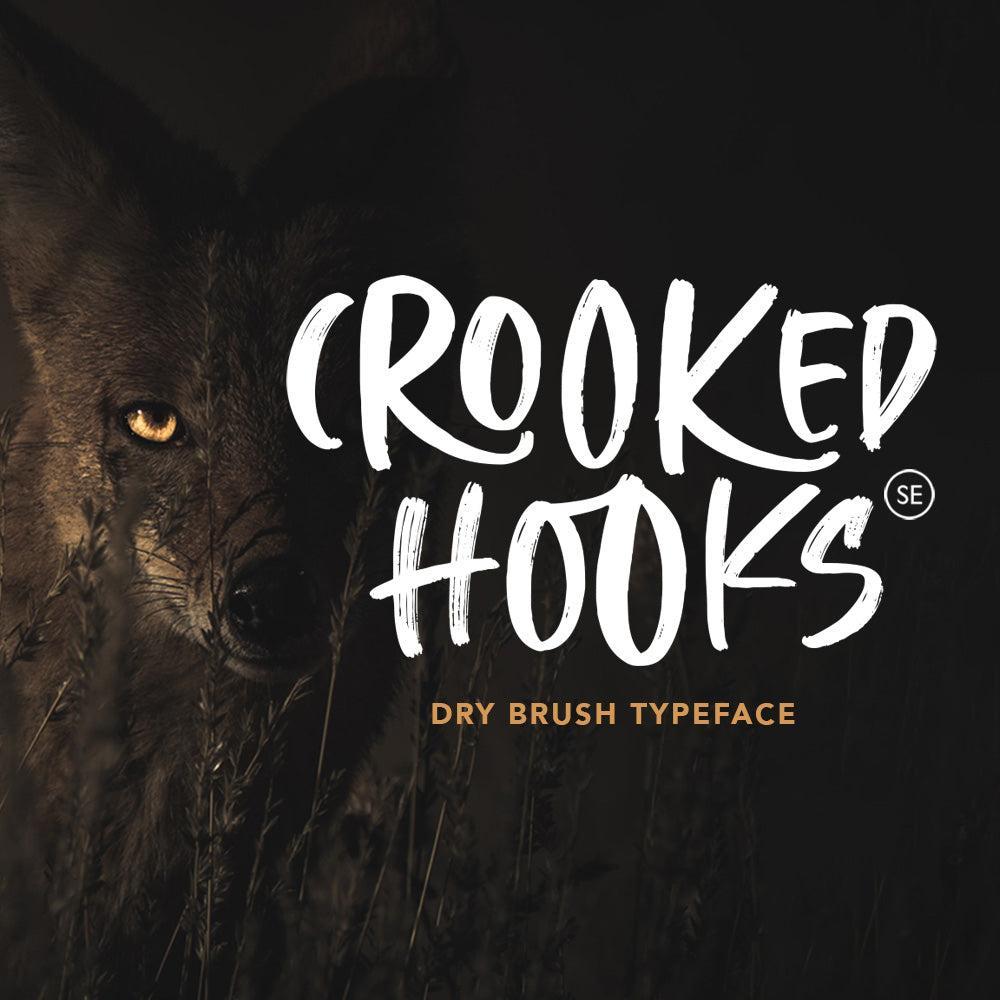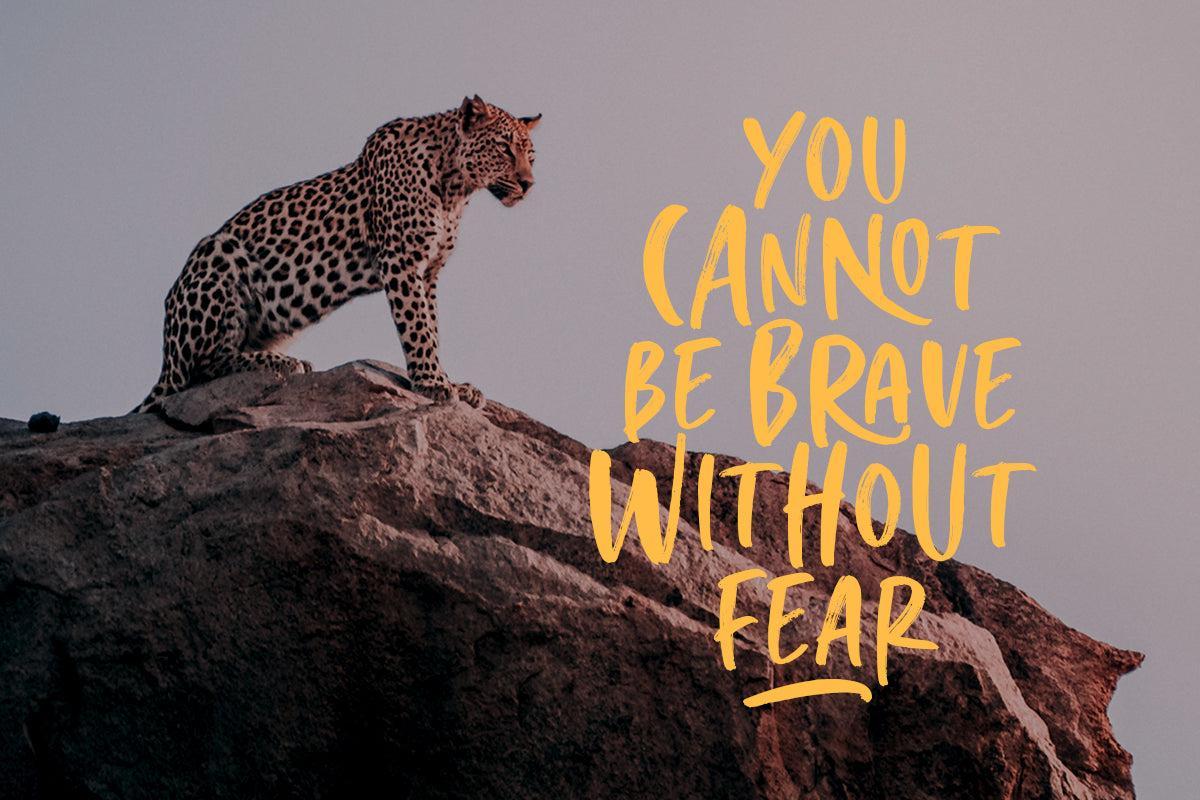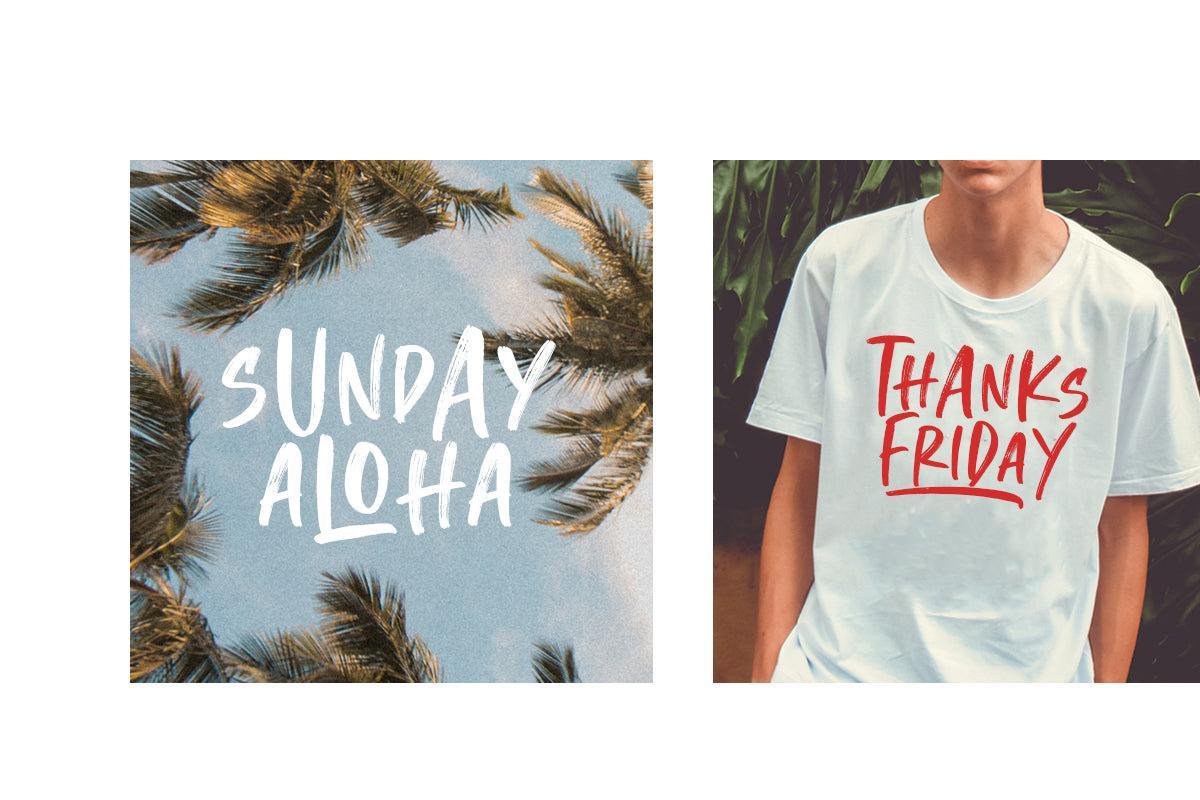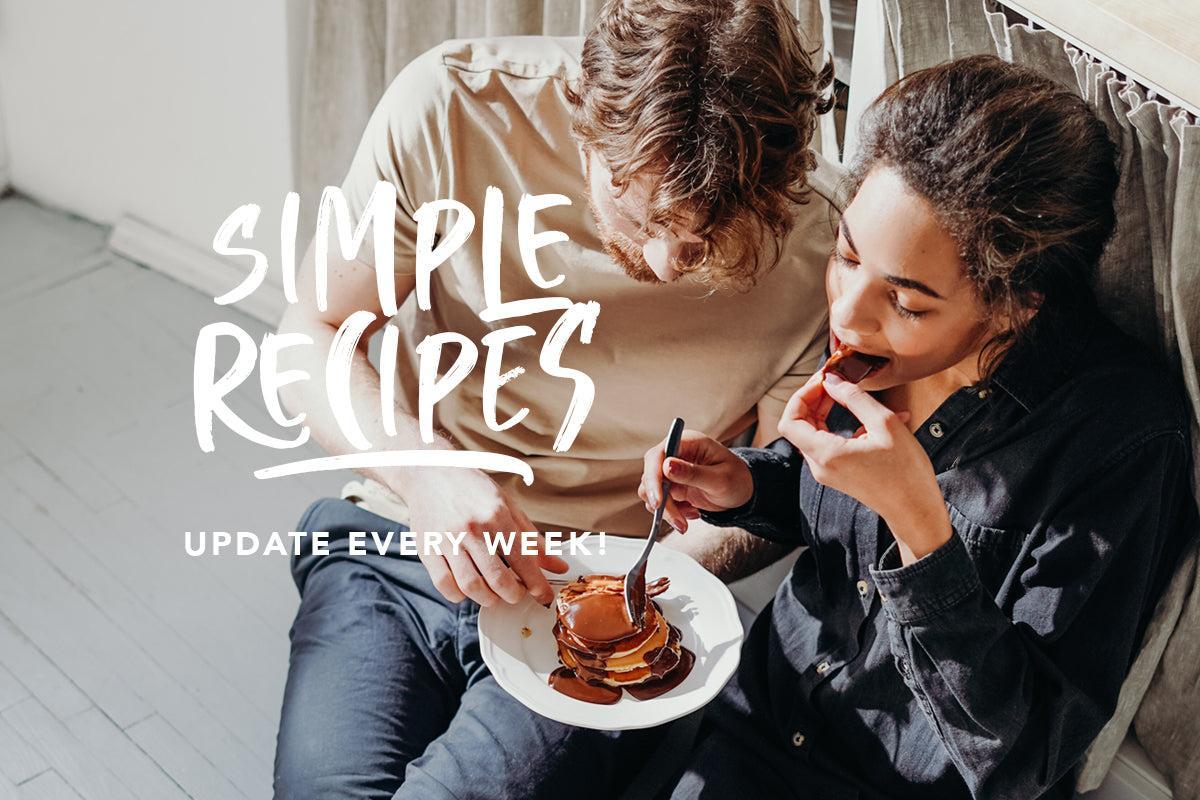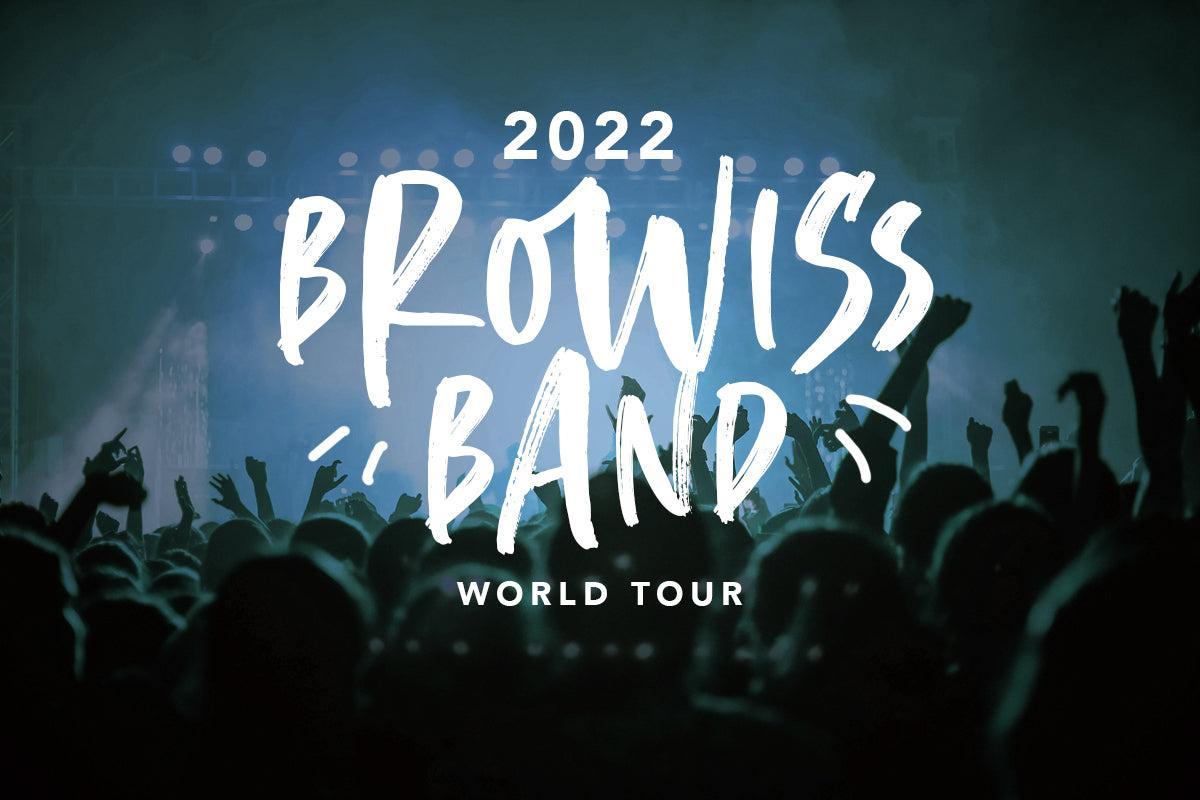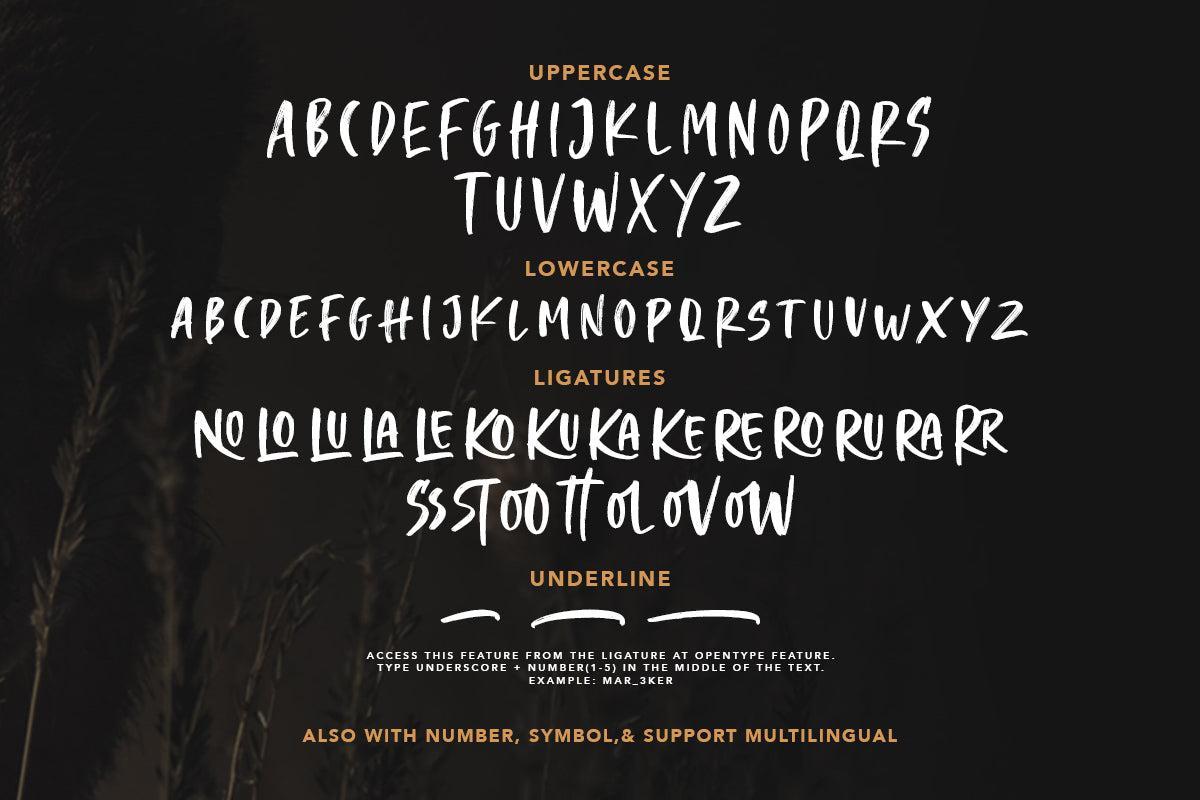
Crooked Hooks - Dry Brush Font
Crooked Hooks is an all-caps dry brush font featuring both uppercase and lowercase letters, numbers, symbols, and multilingual support. It includes stylistic ligatures and an OpenType feature that allows users to add an underline to words by typing an underscore followed by a number.